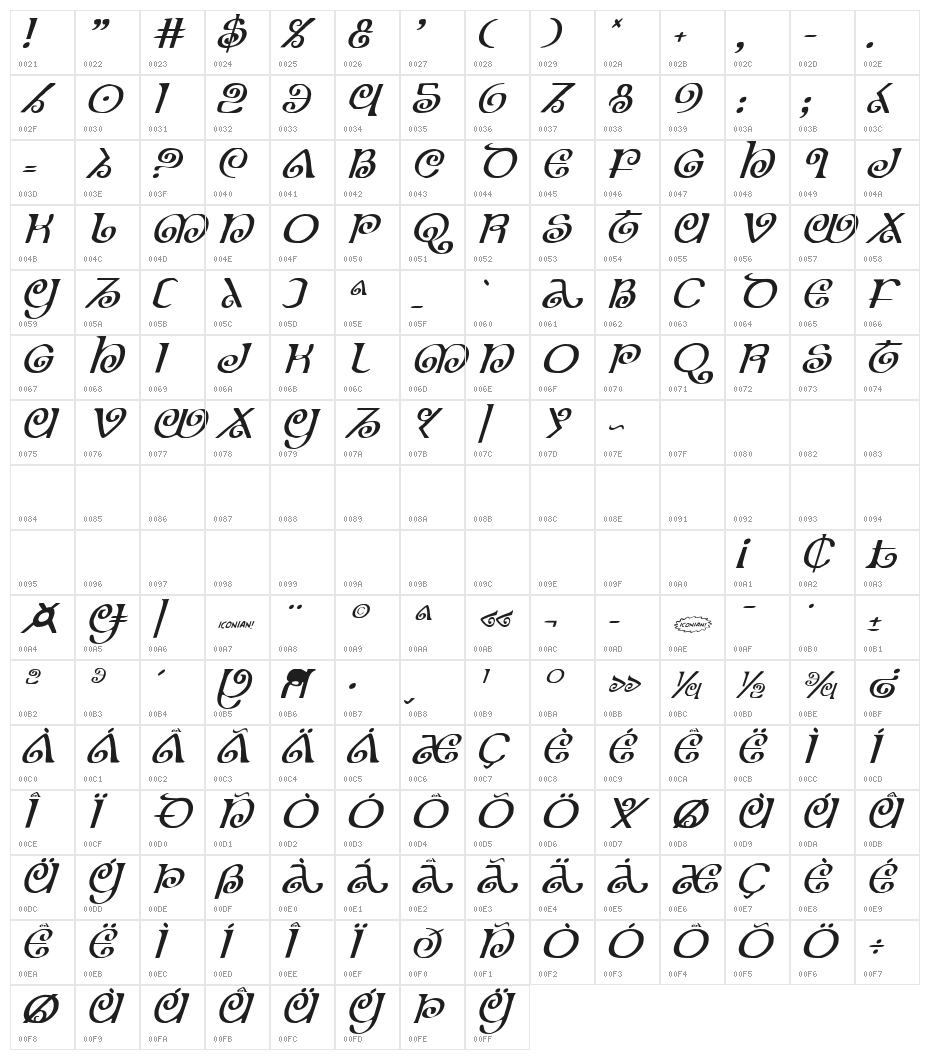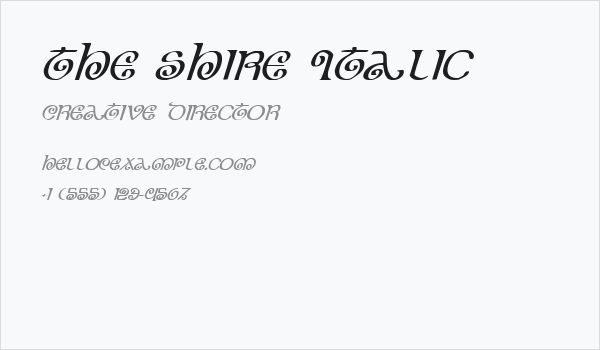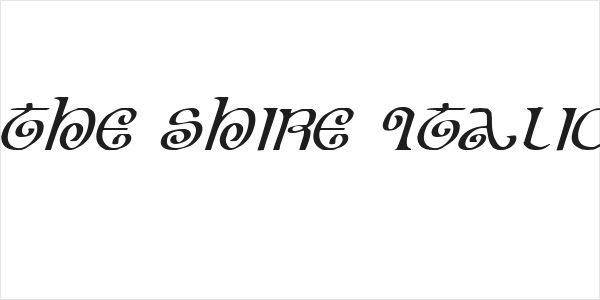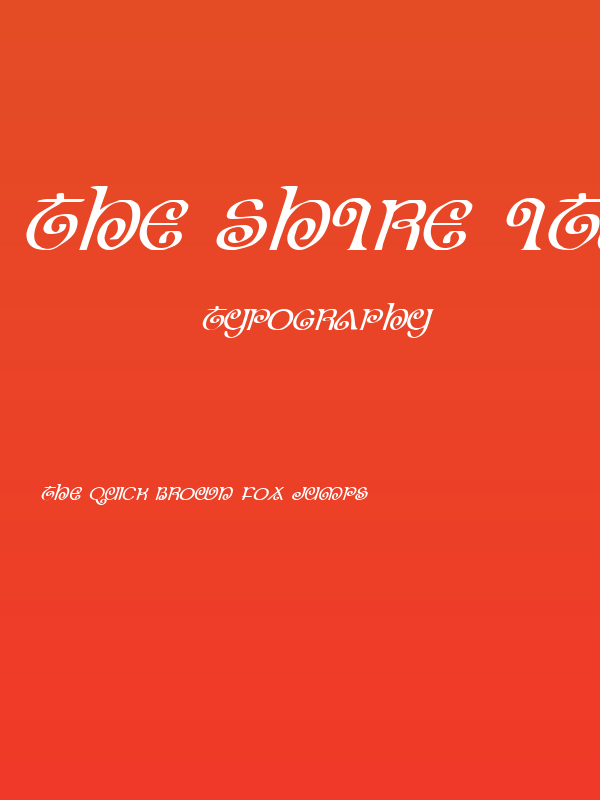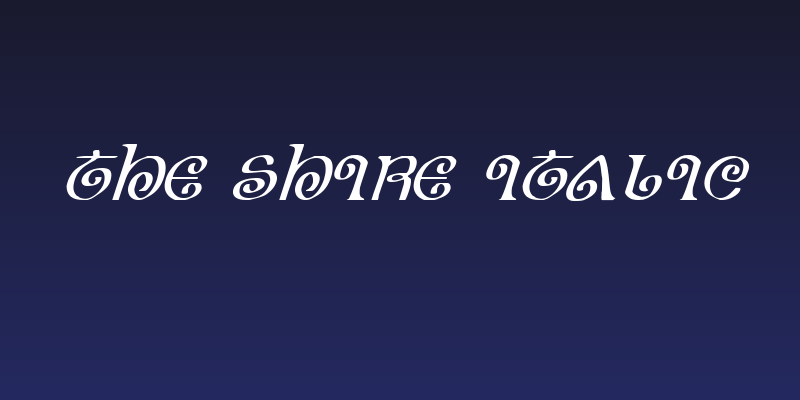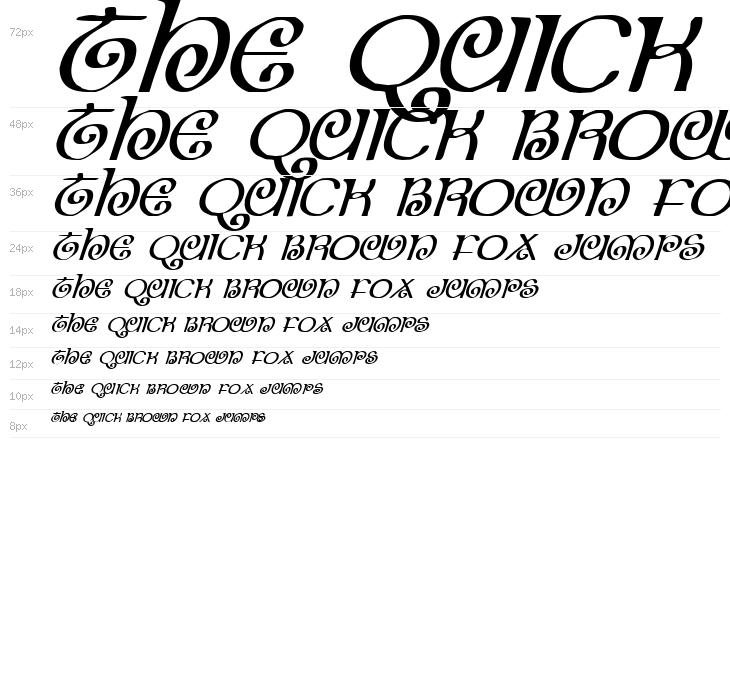
The Shire Italic Font
The Shire Italic Description
This font features a whimsical and decorative style with a strong italic slant, characterized by its unique and intricate swirls and curls on each letter. The uppercase and lowercase letters maintain a consistent design theme, with exaggerated curves and flourishes that give it a fantasy-like appearance. The numerals and special characters are equally ornate, complementing the overall aesthetic. This font's distinctiveness makes it stand out, offering a playful yet elegant vibe that can add a touch of magic to any design.
| Proposed Projects | Ideal for fantasy-themed projects, book covers, invitations, and branding that requires a magical or whimsical touch. |